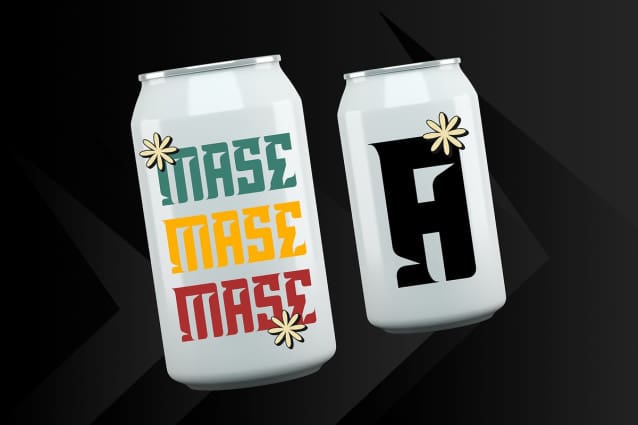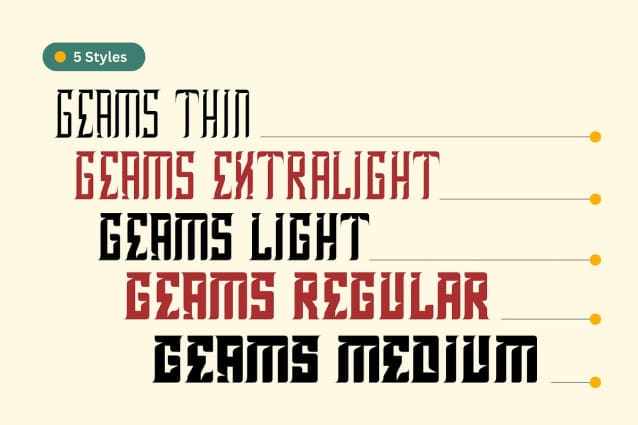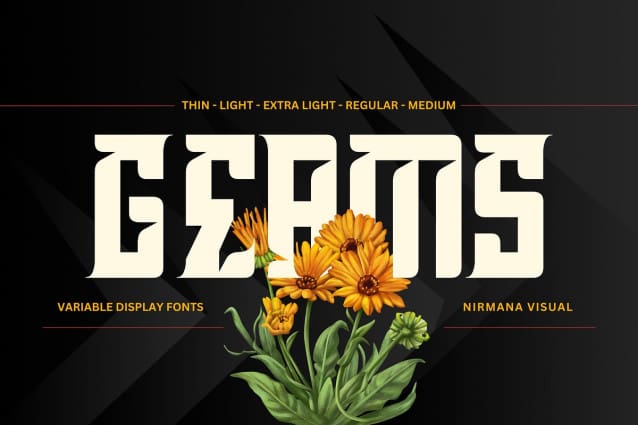
Geams Display Font
Geams Display Font is a unique variable display font known for its bold, modern design and customizable versatility. It offers a wide range of styles and weights that can adapt to different screen sizes and media, making it perfect for dynamic projects. Geams allows designers to adjust the thickness, width, and slant of each letter, creating a customized look that suits various themes. With its clean lines and flexible properties, Geams Display is ideal for headlines, posters, branding, and creative digital content, blending functionality with aesthetics.